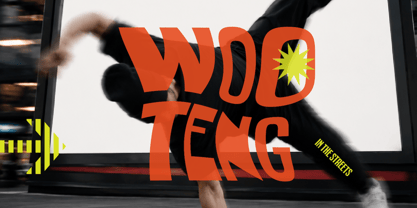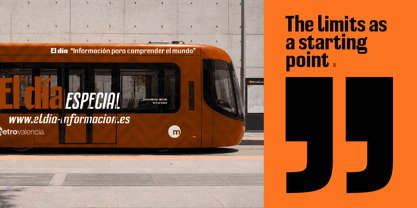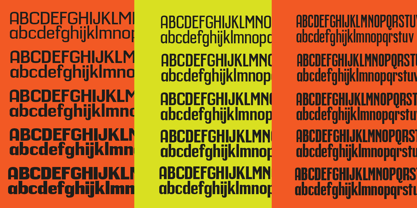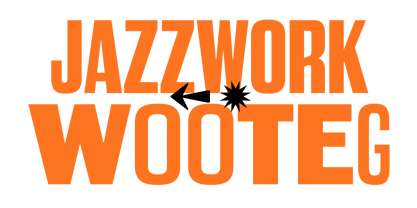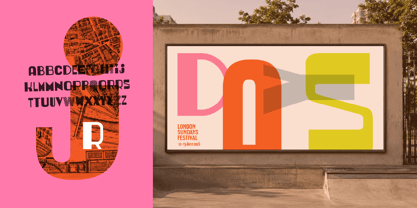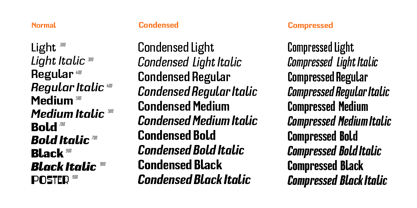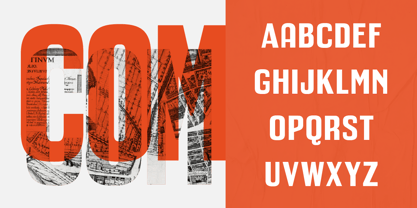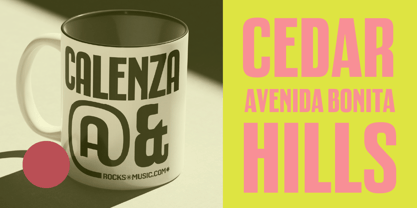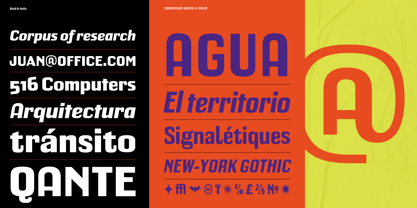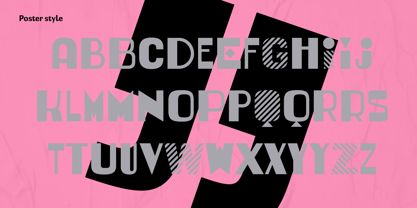
Calenza
by Mostardesign
The Calenza Font Family was designed by Olivier Gourvat and published by Mostardesign. Calenza contains 31 styles and family package options. More about this family
Calenza is a contemporary type family inspired by a series of blue ceramic street name plaques found throughout the historic center of Valencia, Spain. Originally created in the early twentieth century, these signs feature a distinctive vernacular lettering style shaped by practical constraints, local craftsmanship, and the need for clear public communication.
The project began with extensive photographic documentation and research into Valencia’s urban heritage. Rather than producing a strict historical revival, Calenza reinterprets the character and spirit of the original lettering through a modern and versatile typographic system designed for contemporary graphic design.
One of the defining features of the source material is the use of varying letter widths to accommodate street names of different lengths while maintaining visual consistency and legibility. This principle became the foundation of the family, which is available in three widths: Regular, Condensed, and Compressed. Together, they offer designers a broad range of expressive possibilities, from compact editorial layouts to impactful headlines and branding applications.
The family includes multiple weights, true italics, small capitals, extensive OpenType features, and multilingual language support. A Variable Font version further expands its flexibility by allowing continuous control over width and weight.
Alongside the core family, Calenza Poster explores the more expressive side of the original street lettering. Designed as an all-caps display style, it preserves many of the distinctive details, irregularities, and construction quirks observed on the ceramic plaques. Several alternate characters featuring bold striped patterns introduce a contemporary graphic dimension while maintaining a strong connection to the source material.
Balancing historical inspiration with modern functionality, Calenza is equally suited to branding, editorial design, signage, packaging, cultural projects, and large-scale typography. Its combination of vernacular authenticity, architectural influence, and contemporary precision gives designers access to a distinctive visual voice rooted in the streets of Valencia while remaining fully adapted to today's creative needs.